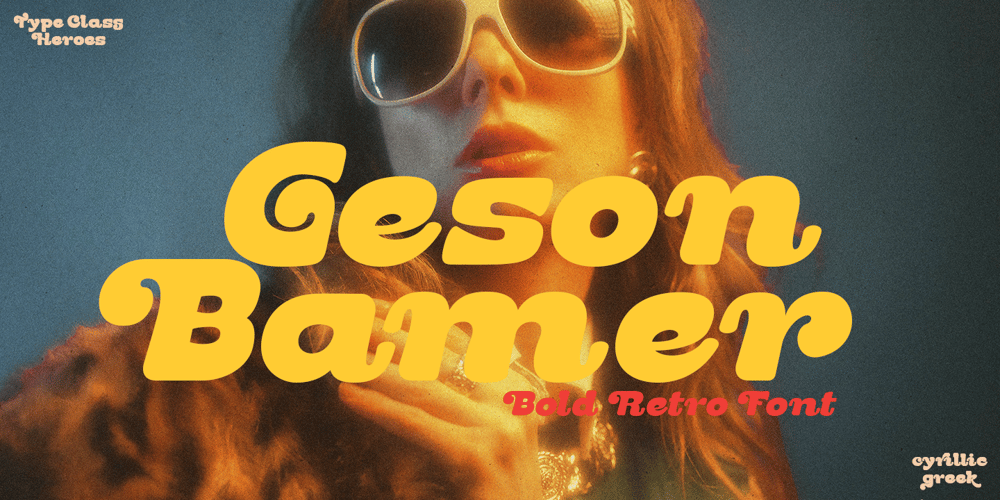
Geson Bamer Font Family was designed by Suandana ipandemade and published by TypeClassHeroes. Geson Bamer contains 2 styles and family package options. Geson Baker is a retro font come with 80’s retro style serif. Retro and refined you can explore and combine creating rhythm for comfortable reading. This font supports more than 100 Latin-based languages and has extensive Cyrillic and Greek support for languages like Russian, Bulgarian, Ukrainian, and many more. Feature Uppercase & Lowercase Number & Symbol International Glyphs (Cyrillic & Greek) Multilingual support Alternative Ligature Hope you enjoy it.